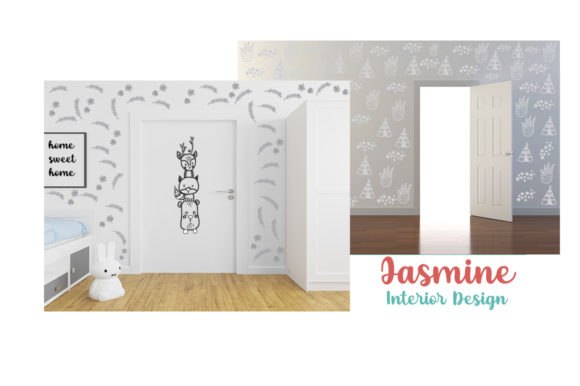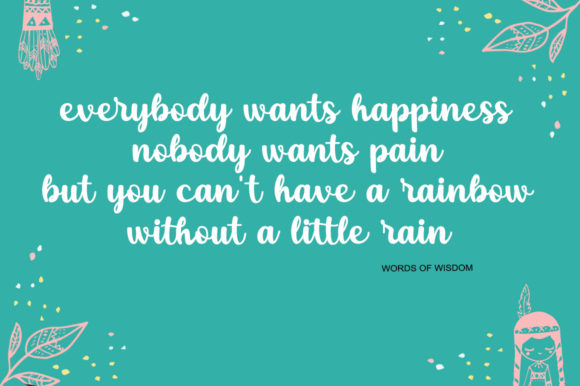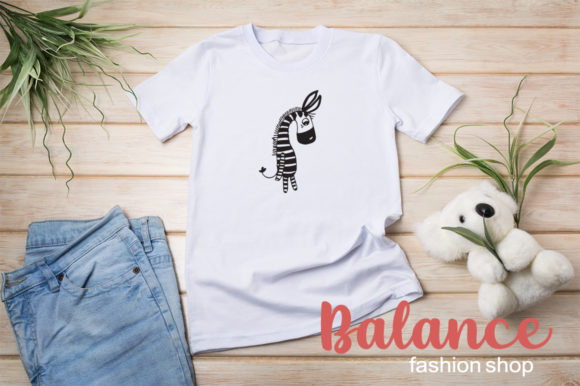
Introduction to Danilla Font
Danilla is a sweet and flowing handwritten font, described by an elegant touch, perfect for your favorite projects.
Why Choose Danilla Font?
Danilla Font offers exceptional quality and versatility, making it a valuable addition to your design toolkit. Whether you’re creating for personal projects or commercial use, Danilla Font delivers professional results.